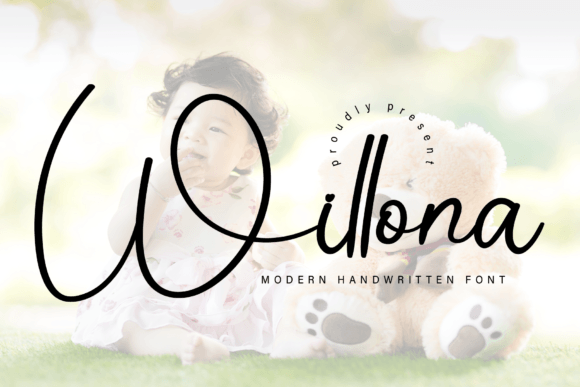
Dive into the world of elegance and grace with Willona, the enchanting script font that will captivate your senses. Inspired by the allure and beauty of nature, Willona brings a touch of charm and sophistication to your creative endeavors.
Unleash your imagination and let Willona's delicate strokes and flowing lines dance across your designs. Whether you're crafting logos that exude luxury, designing labels that ooze charm, or creating photography that captures the essence of beauty, Willona is your perfect companion.
With its PUA encoding, Willona grants you effortless access to a treasure trove of glyphs and swashes, empowering you to add intricate details and stunning embellishments to your projects. Let your creativity flourish as you explore the endless possibilities that Willona presents.
Indulge in the beauty of Willona and elevate your designs to new heights. Experience the joy of creating projects that radiate elegance, captivate hearts, and leave a lasting impression on your audience. Embrace the power of Willona and unlock the door to a world of aesthetic wonders.
So, embark on this creative journey with Willona, the font that ignites your passion and transforms your designs into masterpieces. Let your imagination soar and witness the magic that unfolds when beauty and creativity unite.